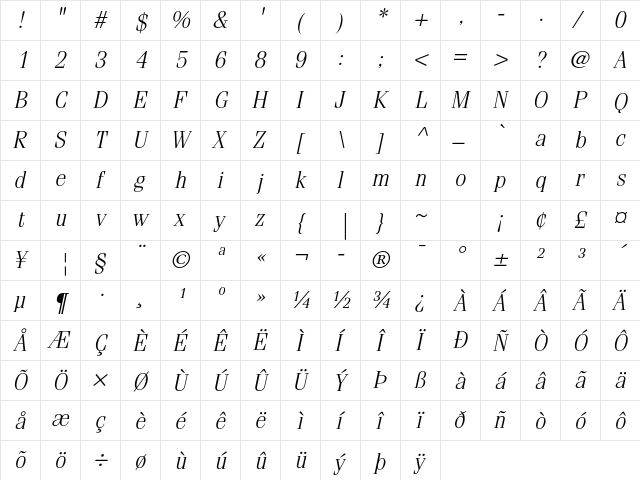
ITC Fenice Std Light Oblique
| Designer | Aldo Novarese |
Design Context for ITC Fenice Std Typeface
ITC Fenice Std offers clean, dependable letterforms without strong stylistic allegiance, making it a practical choice for designers who need flexibility. Its italic angle brings a sense of urgency and motion to the letterforms. The delicate stroke weight brings airiness and refinement to layouts.
Pro Tip: Use ITC Fenice Std for emphasis, pull quotes, and subheadings where its slanted energy can add rhythm to the layout.